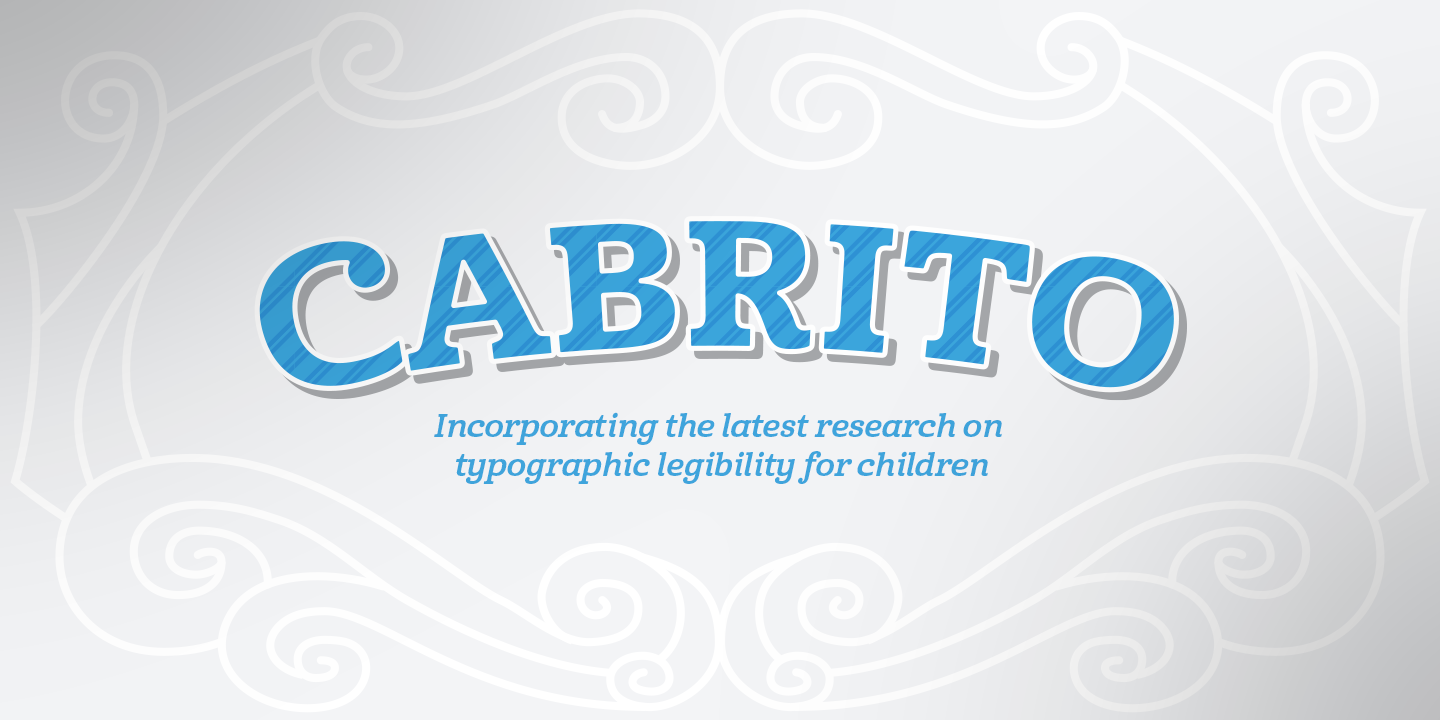
Cabrito Font is perfect for playful children's book designs, kid-friendly educational materials, family restaurant branding, petting zoo signage, children's toy packaging, daycare center communications, fun family activity posters, playful app interfaces, cheerful greeting cards, and whimsical brand identities that require adorable charm and youthful energy.
This font is exciting because it captures the delightful playfulness and innocent joy of young goats with bouncy, energetic letterforms that seem to hop across the page with childlike enthusiasm and unbridled happiness. Cabrito Font features rounded edges and cheerful proportions that embody the spirited energy and adorable charm essential for child-focused designs and family-friendly communications that need to create instant smiles and warm connections.
Cabrito Font family includes Regular, Bold, Light, Playful, Bouncy, Happy, Fun, and Cheerful versions, plus cute symbols, playful ornaments, childlike icons, and joyful design elements that enhance the adorable aesthetic and provide comprehensive solutions for children's and family-focused applications.
For children's and family-friendly design projects, Cabrito Font Free Download delivers unmatched playful charm and youthful appeal. The font's bouncy letterforms and cheerful character make it perfect for children's publishers, family brands, and educational organizations seeking to communicate joy, playfulness, and child-friendly accessibility. Its adorable design appeals to children and parents who appreciate fun, safe, and engaging experiences. The character set includes playful alternates and cute variations that enhance the family-friendly brand experience. Professional designers appreciate its ability to convey both childlike wonder and professional quality while maintaining excellent readability across children's publications, family marketing materials, and educational communications, making it essential for brands that want to capture the innocent joy and playful energy that defines exceptional children's experiences and creates lasting positive memories for families and young audiences.